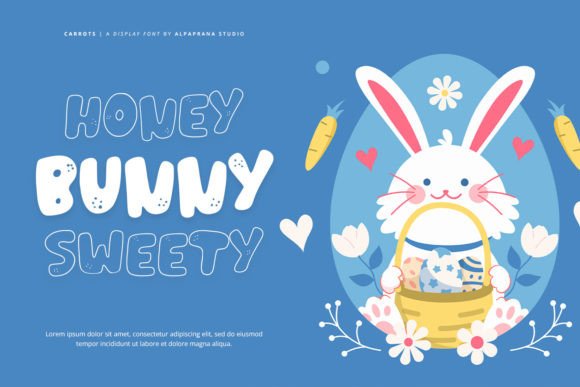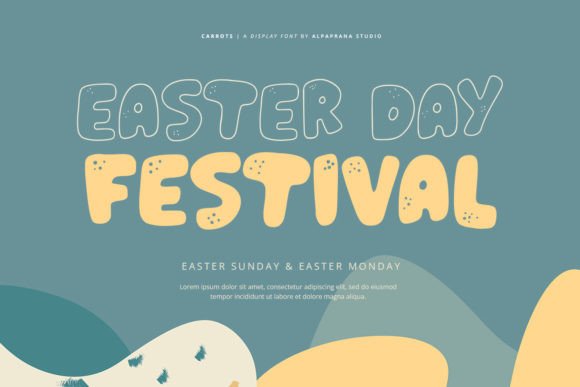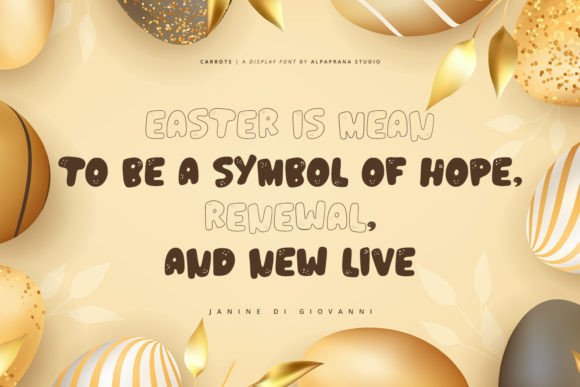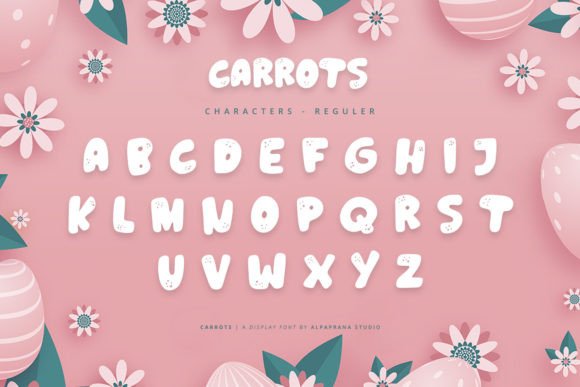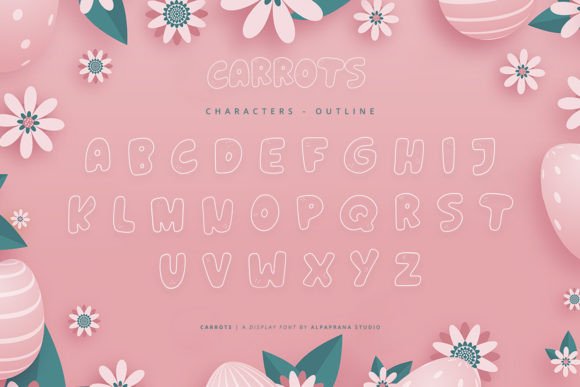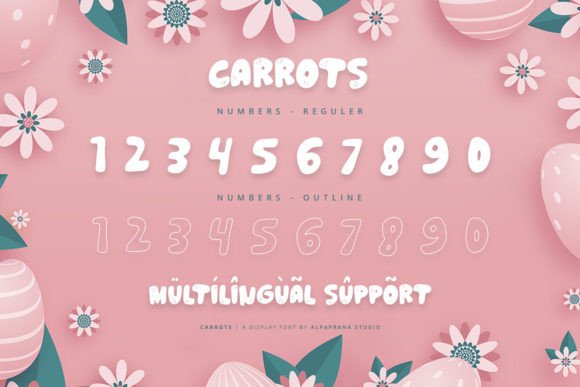
Discover the Sweet Charm of Carrots Font
Have you ever been brainstorming ideas for a new project and suddenly, a spark of inspiration hits you? Maybe it’s a color palette, a typography style, or even a quirky character that sets the tone for your entire design. For designers, these moments of creativity can be the most exciting – and sometimes, they lead us to the most unexpected yet amazing fonts.
One such font that embodies this spirit of playfulness is the Carrots Font, a display font designed to add a touch of whimsy to your designs. With its cute and endearing characters, Carrots Font is perfect for branding, logo design, logotype, and more. Whether you’re working on a children’s book cover or a packaging design for a food product, this font is sure to bring a smile to your audience’s faces.
For designers, having a versatile font like Carrots Font in their toolkit can be incredibly valuable. It offers a unique way to express their creativity and connect with their target audience on a deeper level. With its wide range of applications, Carrots Font is a must-have for anyone looking to add a dash of personality to their designs.
Key Features of Carrots Font
• Font Family: Carrots is a sans-serif font family designed to be highly legible and versatile.
• Character Count: The Carrots font family includes over 1,000 characters, including Latin, Cyrillic, and Greek alphabets, as well as punctuation and symbols.
• Unique Characteristics: Carrots features a distinctive, rounded design with a high x-height and open apertures, making it highly legible in a variety of contexts, including body text and headlines.
Carrots Font Review
Overall, I was excited to dive into the Carrots Font, but as with any design, it’s a mixed bag. Let’s start with what works well: ✨ The font’s playful, hand-drawn feel is a great fit for projects that need a whimsical touch. ✨ The character set is comprehensive, making it suitable for a wide range of applications. ✨ The font’s flexibility in terms of size and weight is impressive, allowing designers to create a wide range of effects.
However, there are some limitations to consider: ⚠️ The font’s lack of consistency in stroke width and letter spacing can make it look a bit messy at larger sizes. ⚠️ Some of the characters, particularly the lowercase ‘a’ and ‘e’, can be difficult to read at small sizes. ⚠️ The font’s OpenType features are limited, which may be a drawback for designers who rely heavily on advanced typographic effects.
Overall, I’d say the Carrots Font is a solid choice for designers who need a playful, hand-drawn font for a specific project. While it may not be the best fit for every design, its strengths make it a valuable addition to any font library.
• Great for: Playful, whimsical designs; projects that require a hand-drawn feel
• Not ideal for: Formal or professional designs; applications that require high precision typography
The Carrots font is ideal for:
• Food and beverage branding
• Children’s products and packaging
• Playful and whimsical designs
Remember to use the Carrots font in moderation to avoid overwhelming your design. Experiment with different font sizes, colors, and combinations to achieve the desired effect.